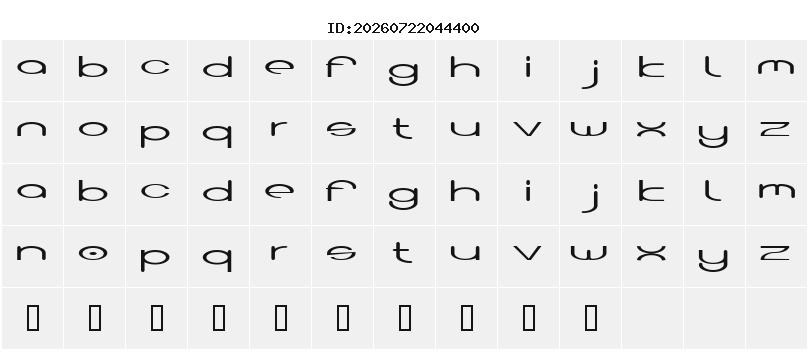
• Font Name: hoodoo two
• Full Font Name: hoodoo two
About hoodoo two.ttf
hoodoo two.ttf is a modern, elegant sans-serif font designed for ultimate readability and visual harmony. Perfect for branding, headlines, web design, and print materials.